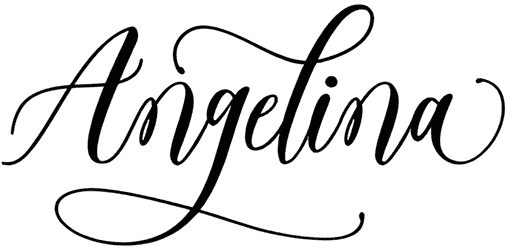
Angelina Font
Sometimes a script font such as Angelina is what a graphic artist requires to take high-end posters, logos, branding, and wedding invitations out of the box.
This cursive funeral font comes with delicate and rounded characters, thus it brings a vibe of personalization, precision, and momentum to all of your visual content. Due to its elaborate style, reading some of its characters, especially lowercase letters, would be a little bit hard.